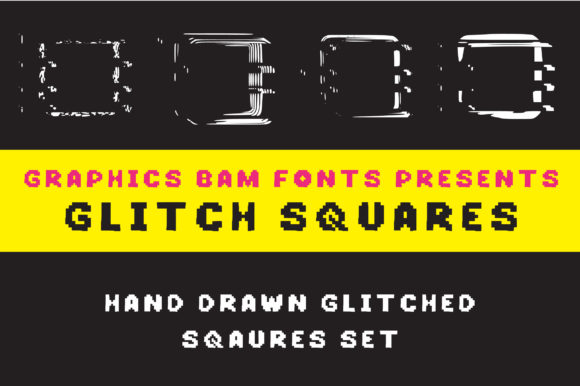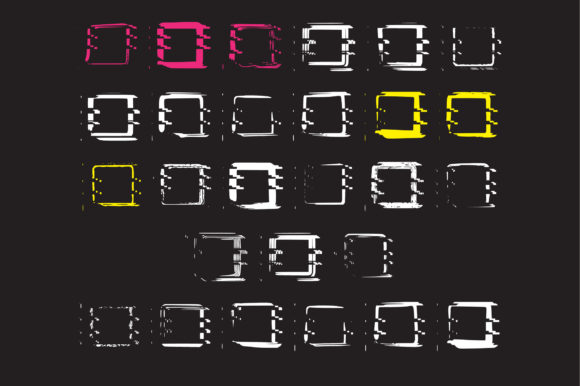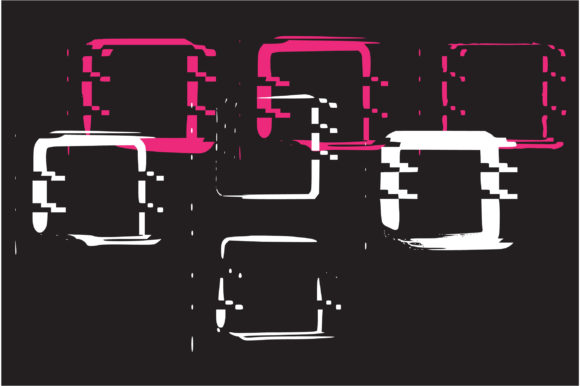
Glitch Squares Font
About Glitch Squares Font
Absolutely! “Glitch Squares” is a cool and uniquely shaped dingbats font that adds a distorted and trendy touch to your designs. With its pixelated and glitchy style, this font is perfect for creating an edgy and modern aesthetic.
The distinct square-shaped glyphs in “Glitch Squares” give your designs a geometric and pixelated look. The glitchy textures and irregularities in the squares add a sense of digital distortion and create a visually intriguing effect.
This font is ideal for projects where you want to create a visually striking and unconventional design. Whether you’re working on posters, album covers, social media graphics, or any other digital artwork, “Glitch Squares” can add a unique and contemporary flair.
The pixelated and distorted nature of the font makes it stand out and grab attention. It can be used to create bold headlines, eye-catching icons, or even as decorative elements within larger compositions.
The glitchy effect in “Glitch Squares” adds a sense of digital disruption and experimentation, making it perfect for projects that embrace a modern and edgy aesthetic. It can be particularly well-suited for designs related to technology, gaming, futuristic themes, or any creative field that seeks to convey a sense of innovation and uniqueness.
Additionally, the pixelated style of “Glitch Squares” can evoke a nostalgic feeling reminiscent of retro video games or old computer graphics. This adds a layer of nostalgia and vintage appeal to your designs, making them visually engaging and intriguing.
Overall, “Glitch Squares” is a cool and uniquely shaped dingbats font that brings a distorted and trendy touch to your designs. Its pixelated and glitchy style adds a sense of digital disruption and creativity to your projects, making them visually captivating and distinct.
So go ahead and explore the possibilities of “Glitch Squares” to create visually striking and unconventional designs. Let its pixelated and distorted squares add an edgy and modern aesthetic to your artwork and make your designs stand out in a memorable way.